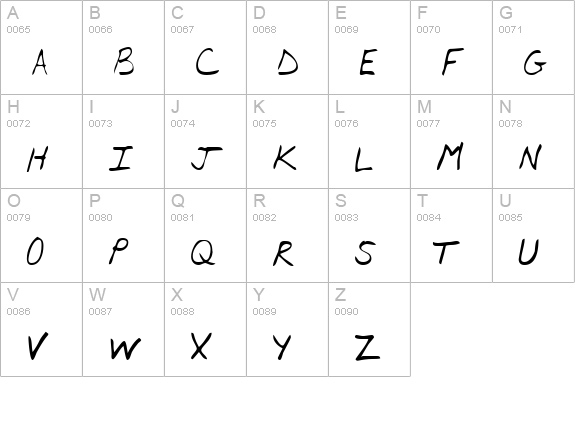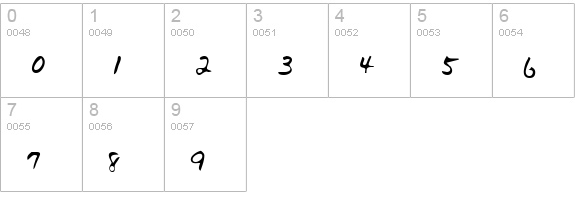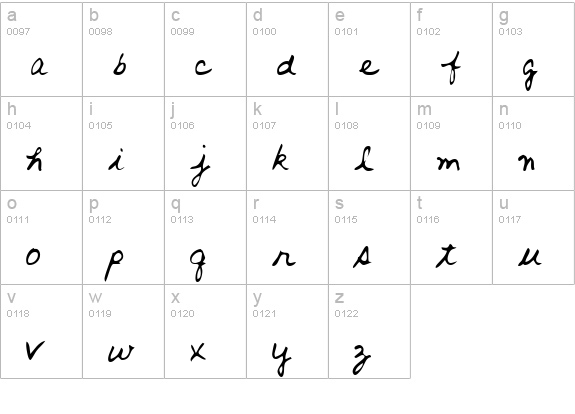
ArronsHand Regular Font Details
ArronsHand Regular is the standard, neutral variant in the ArronsHand typeface family \xE2\x80\x94 well suited to general body text, paragraphs, and standard typographic work.
ArronsHand Regular is a charming and versatile font that exudes a sense of warmth and friendliness. This handwritten style font is perfect for adding a personal touch to your designs, whether it's for invitations, greeting cards, logos, or social media graphics. With its smooth lines and flowing curves, ArronsHand Regular brings a unique and whimsical flair to any project. Best of all, ArronsHand Regular is completely free to download at FontsMarket.com. Whether you're a seasoned designer or just starting out, this font is a valuable addition to your collection. Don't miss out on the opportunity to enhance your creations with the delightful charm of ArronsHand Regular. Download it today and let your creativity soar!